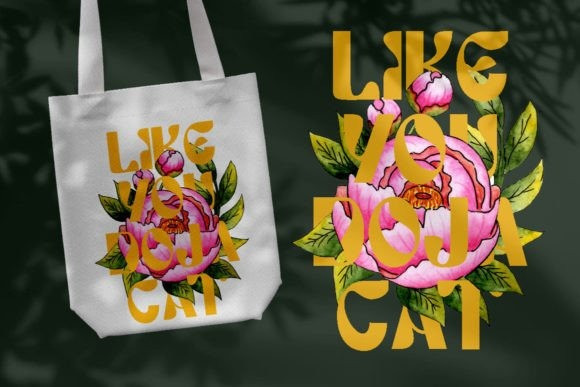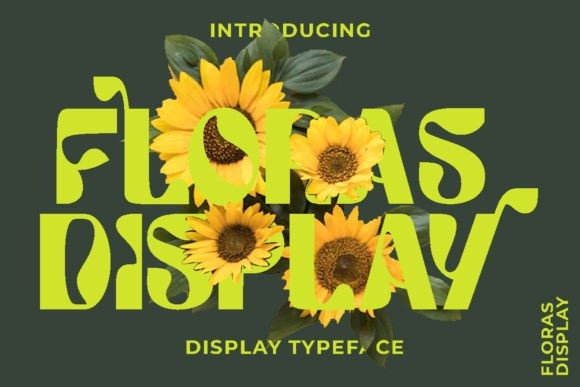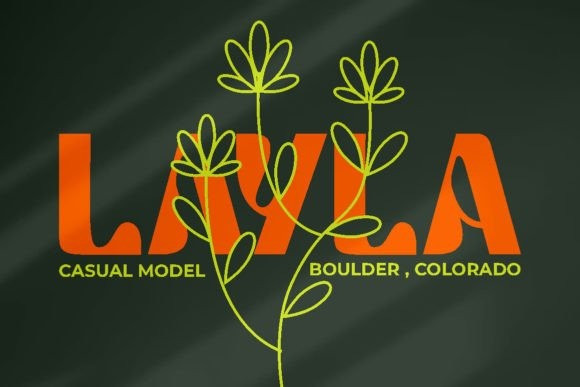
Floras Display Font
Floras Display Font is a funky display font with a lot of grooves. Bring all the good vibes to your design with this unique typeface! Floras Display is PUA encoded which means you can access all the glyphs and ligatures with ease!